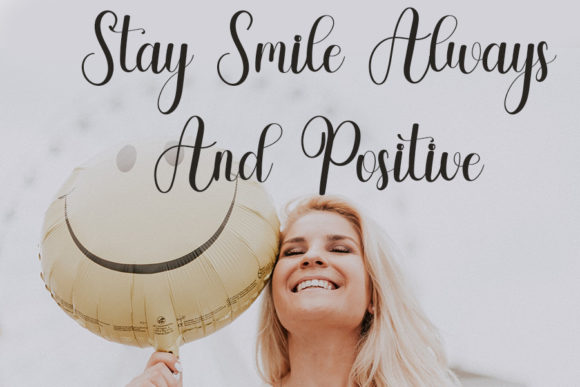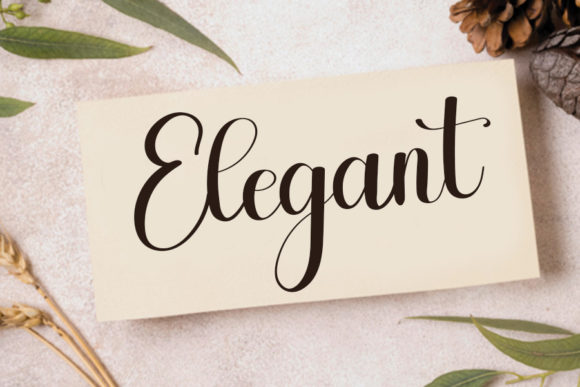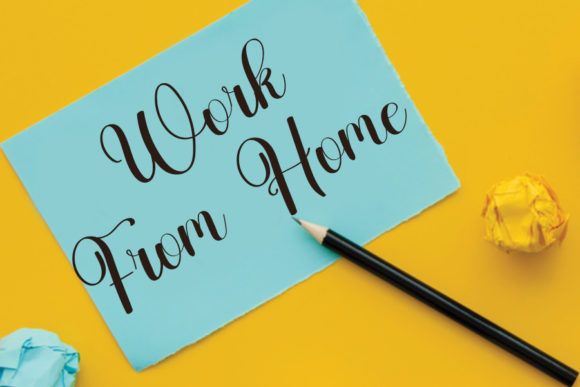
About Thursday Font
“Thursday” emerges as a free-flowing handwritten font, embodying a contemporary atmosphere while exuding impeccable form. Drawing inspiration from the enduring grace of timeless classic calligraphy, it seamlessly harmonizes tradition with modernity. With a perfect balance between thickness and delicacy, and a dynamic variety in its strokes, this font was thoughtfully crafted to elevate the beauty of your projects.
Imagine “Thursday” as an artistic tool that gracefully sweeps across your designs, adding a touch of fluid elegance. Its contemporary twist breathes new life into the classic calligraphic style, resulting in a visual masterpiece that commands attention. As you infuse this font into your projects, you’ll witness your concepts evolving into captivating visual narratives.
The allure of “Thursday” extends beyond its visual appeal; it embodies an essence of timeless sophistication. Its handwritten strokes convey authenticity, transforming your designs into more than just visual elements – they become expressions of artistry and finesse. Each character contributes to the intricate canvas of your creative vision.
“Thursday” becomes a versatile instrument in your design toolbox. Its adaptability allows it to seamlessly integrate with various styles, themes, and purposes. Whether for branding, headlines, invitations, or digital graphics, this font enhances the resonance of your message.
In a world where design marries aesthetics with substance, “Thursday” becomes your key to crafting designs that resonate deeply. Let its free-flowing strokes be the brushstrokes that elevate your creations, infusing them with a touch of contemporary elegance. Embrace the artistic energy of “Thursday” and watch as it transforms your projects into captivating showcases of modern calligraphic artistry, leaving a lasting impression on all who engage with them.